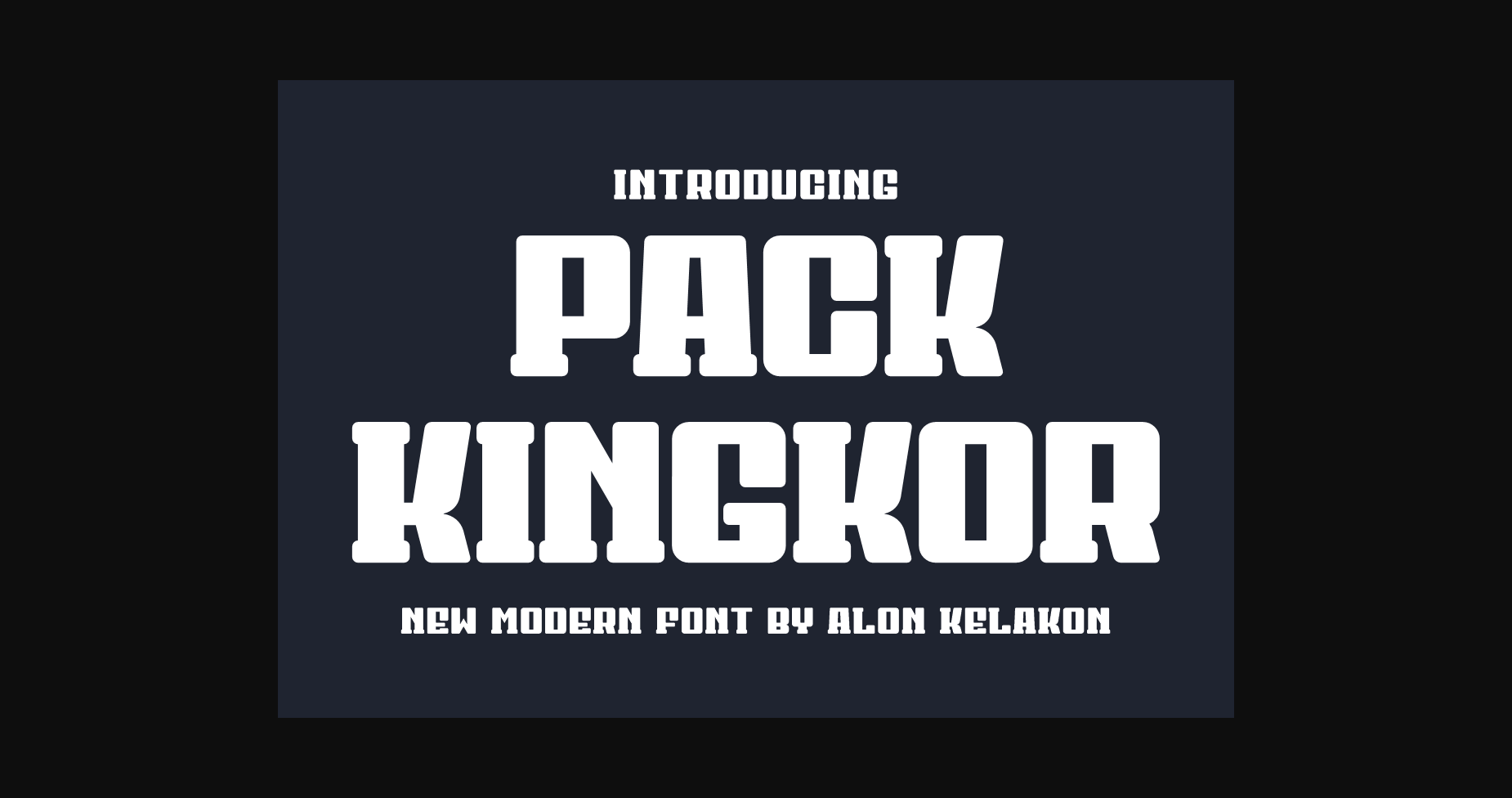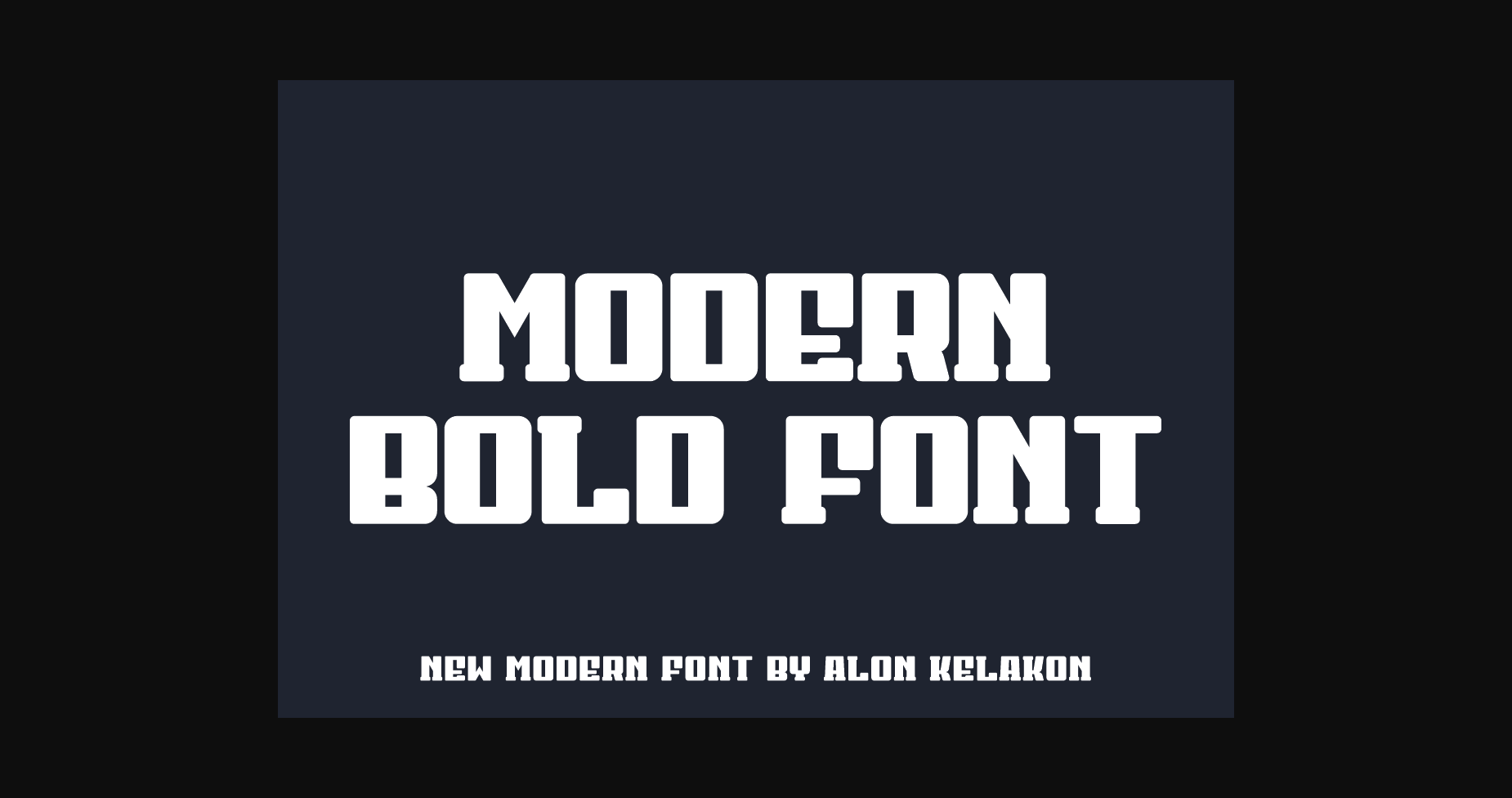
About Pack Kingkor Font
Pack Kingkor is a modern and bold sans-serif font is a strong and striking typeface with clean lines and no serifs. Ideal for contemporary designs, digital media, and advertising, its bold design makes a statement.